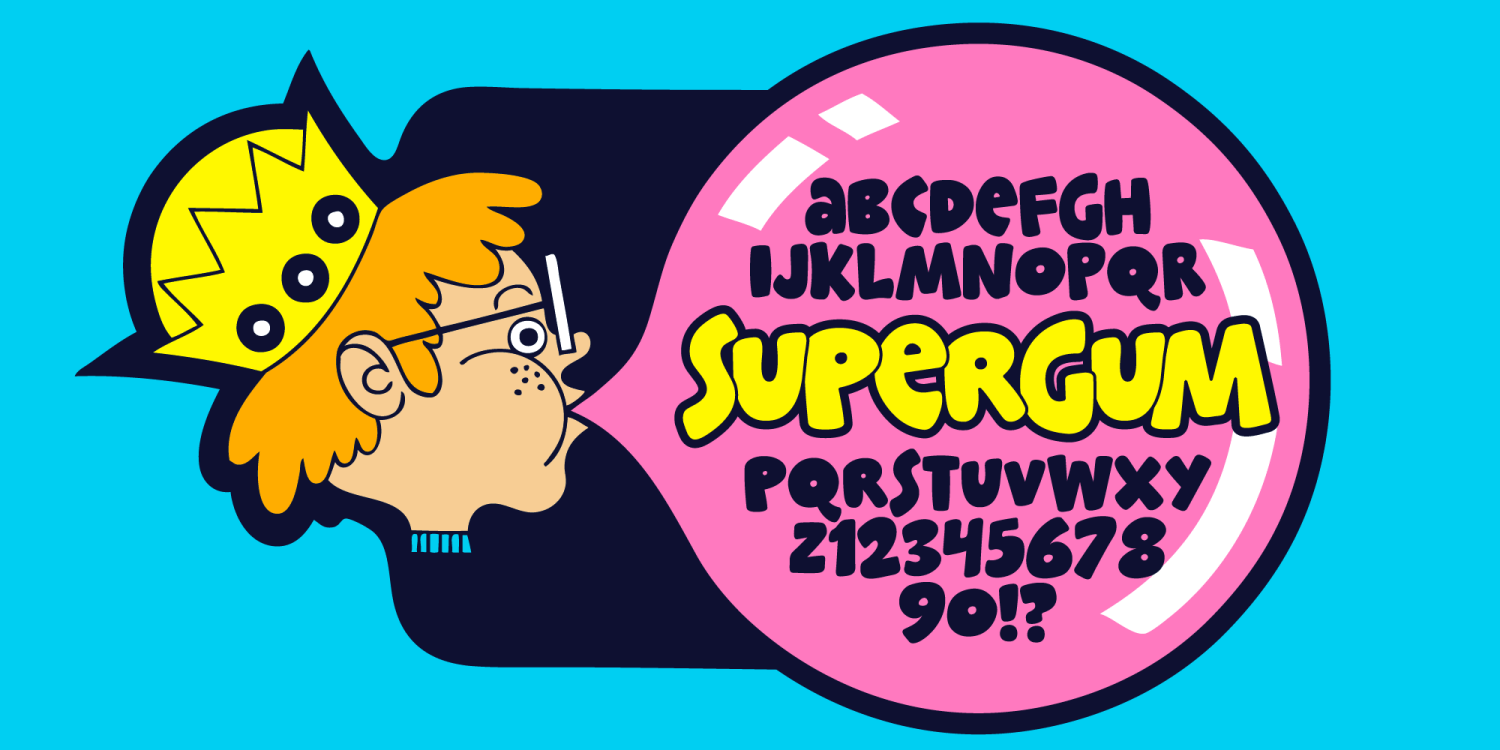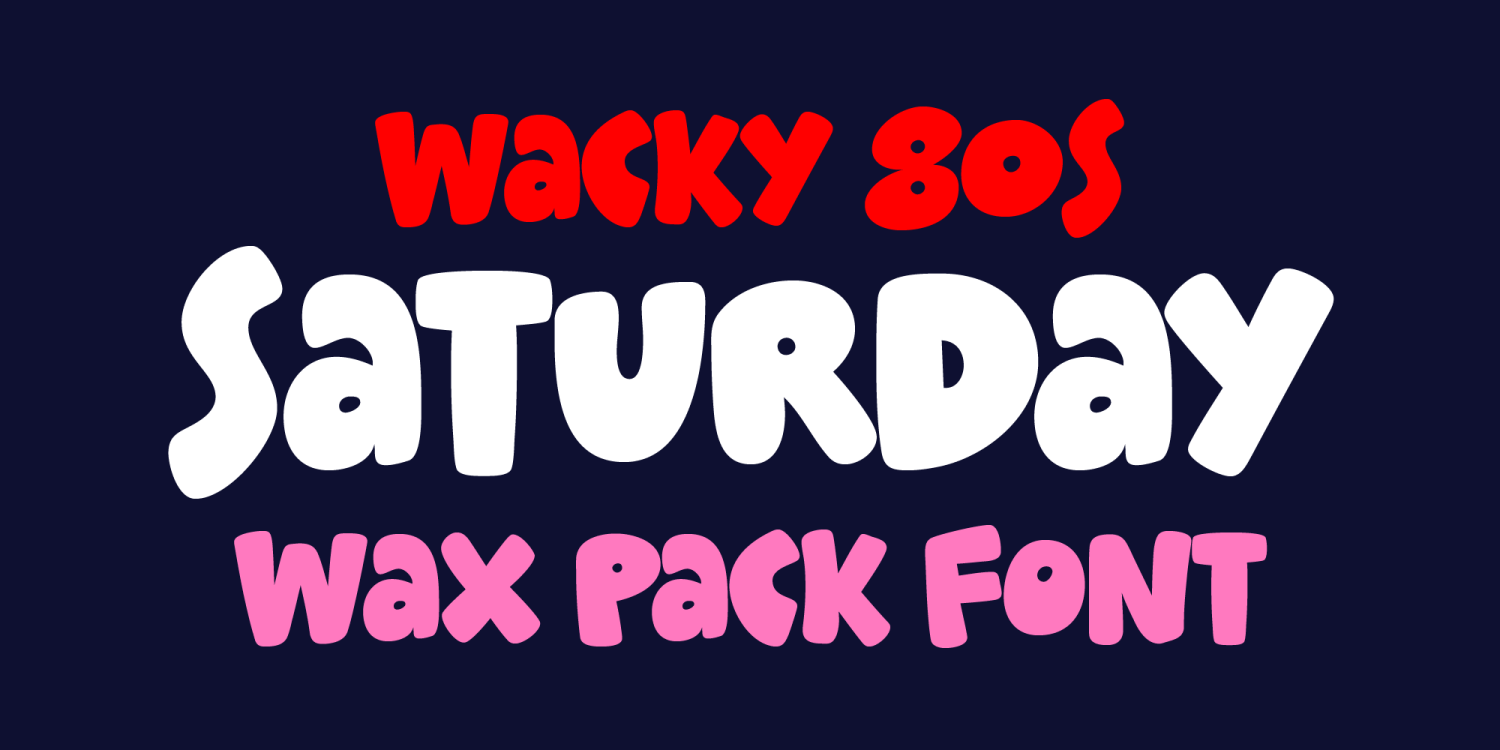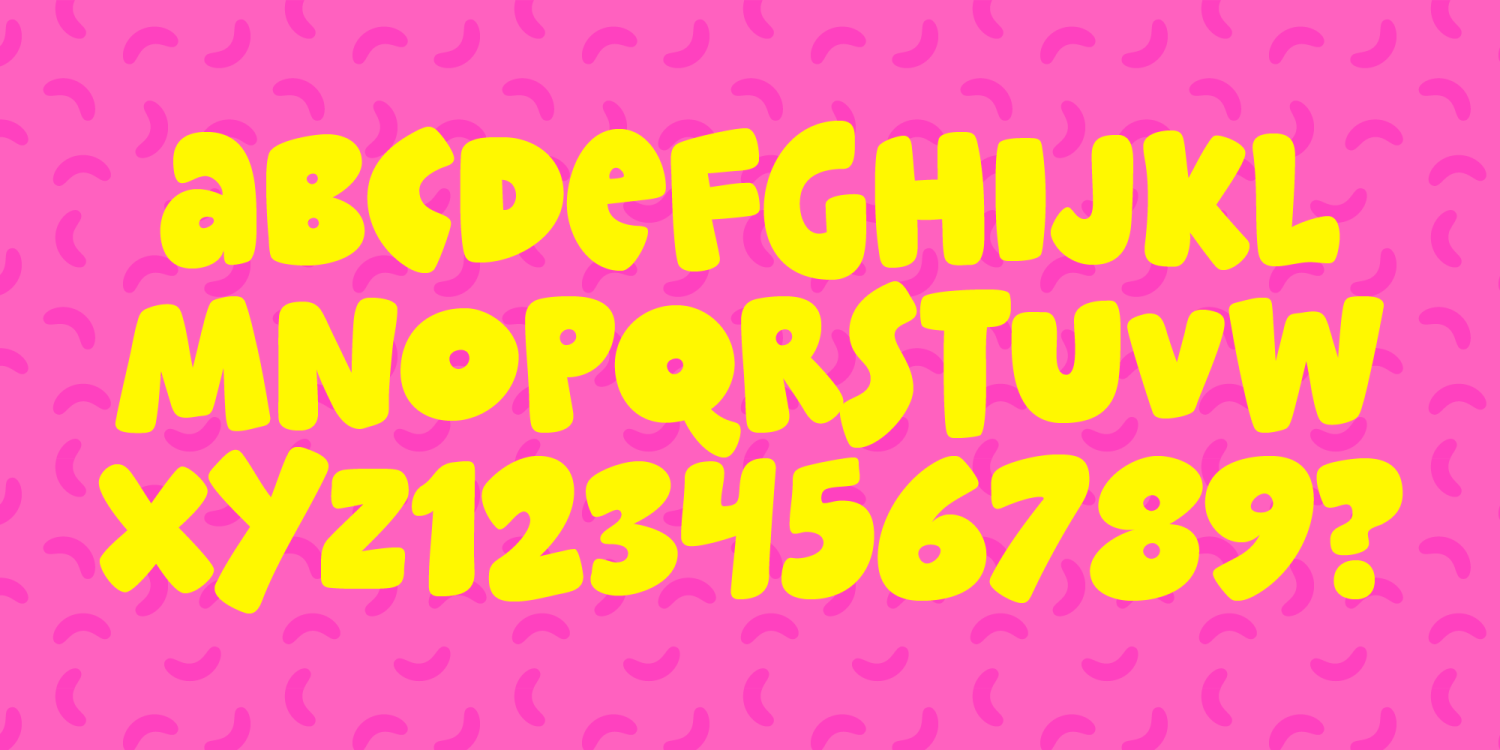
Supergum
Man oh man, I am so jealous of you! You need a new font that captures the 80's bubblegum tween market, so what do you do? Well, you head straight to Fontalicious because you know that's where you're going to find such a gem. What does ol' Ben Balvanz do when he needs a font like that? I'll tell you what I do, I get my knees dirty. I have to make every single letter...EVERY SINGLE LETTER, PEOPLE! Then the beechwood aged process of turning it into a font. Geez, you've got it so good, I envy you.
The Supergum font family includes 228 glyphs.